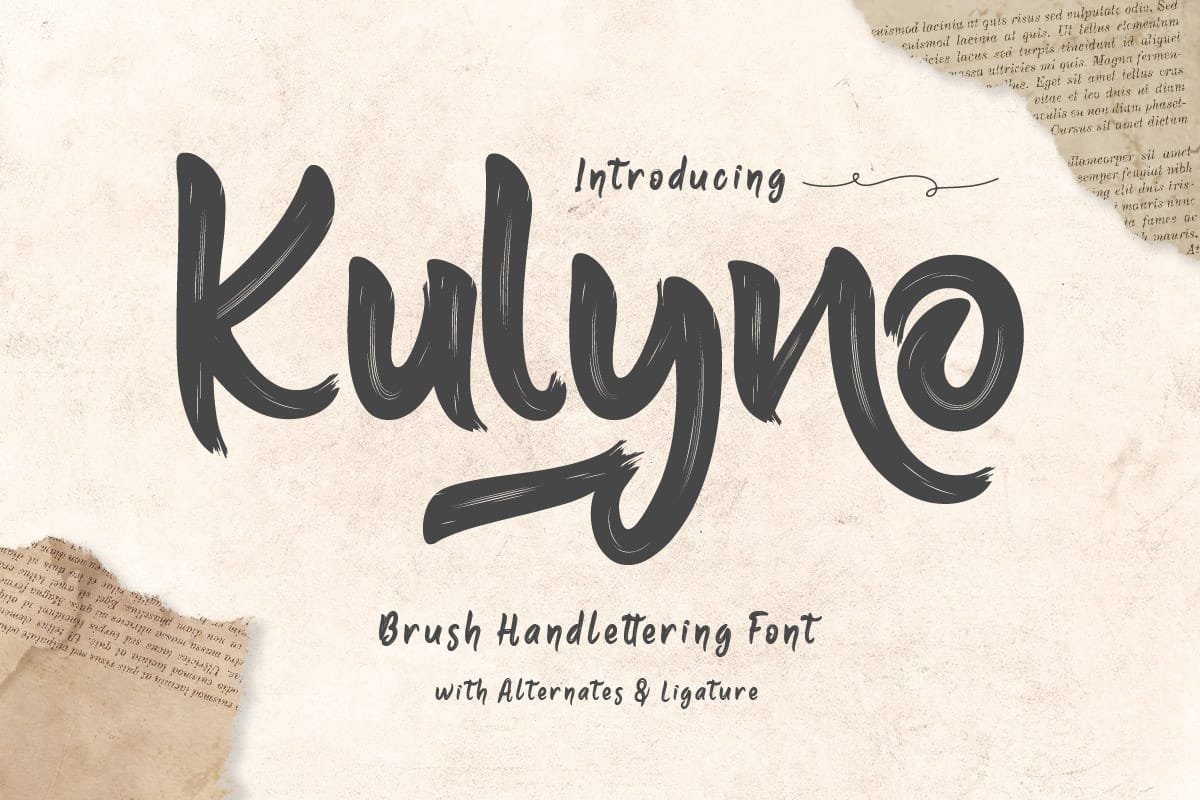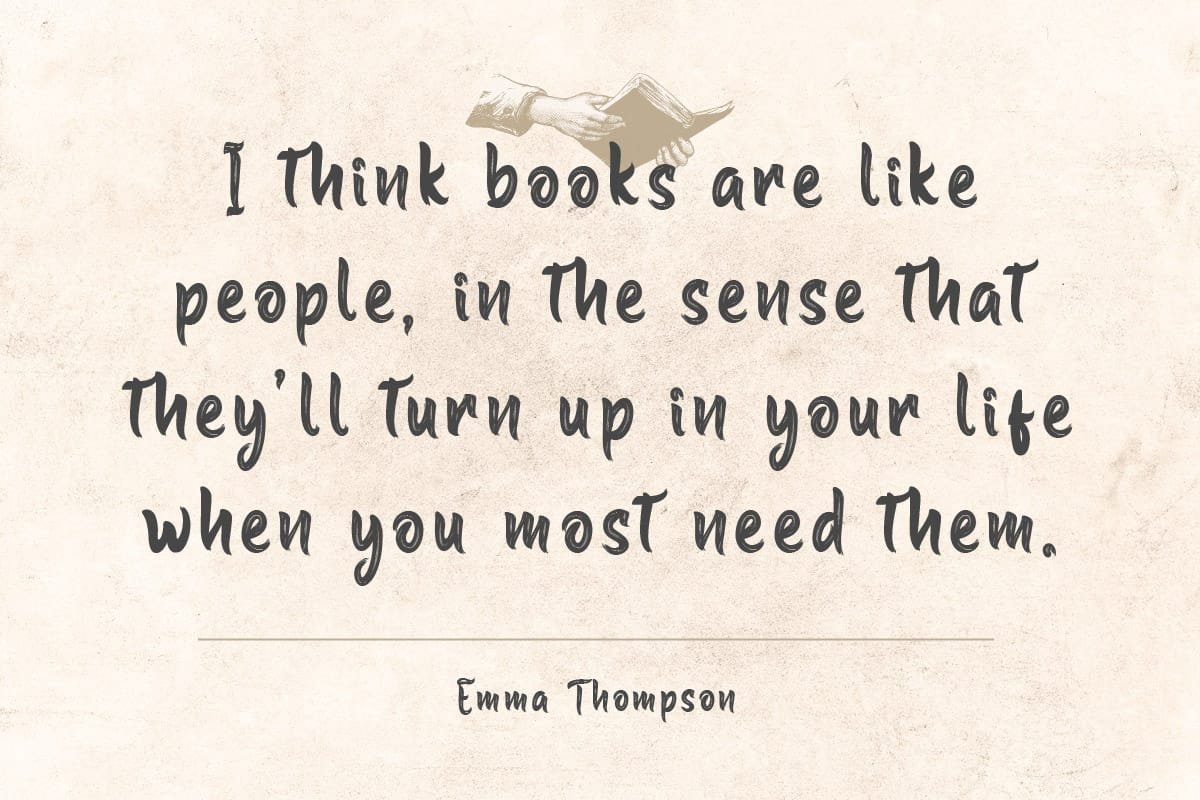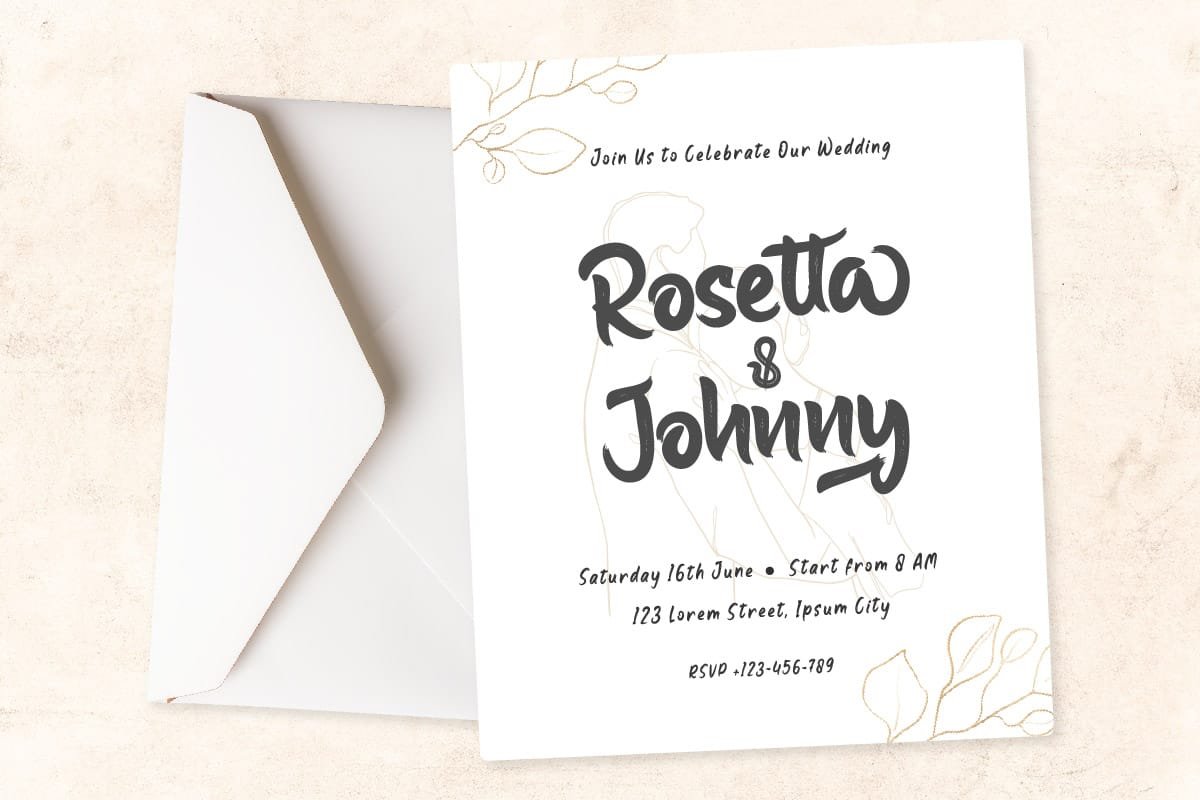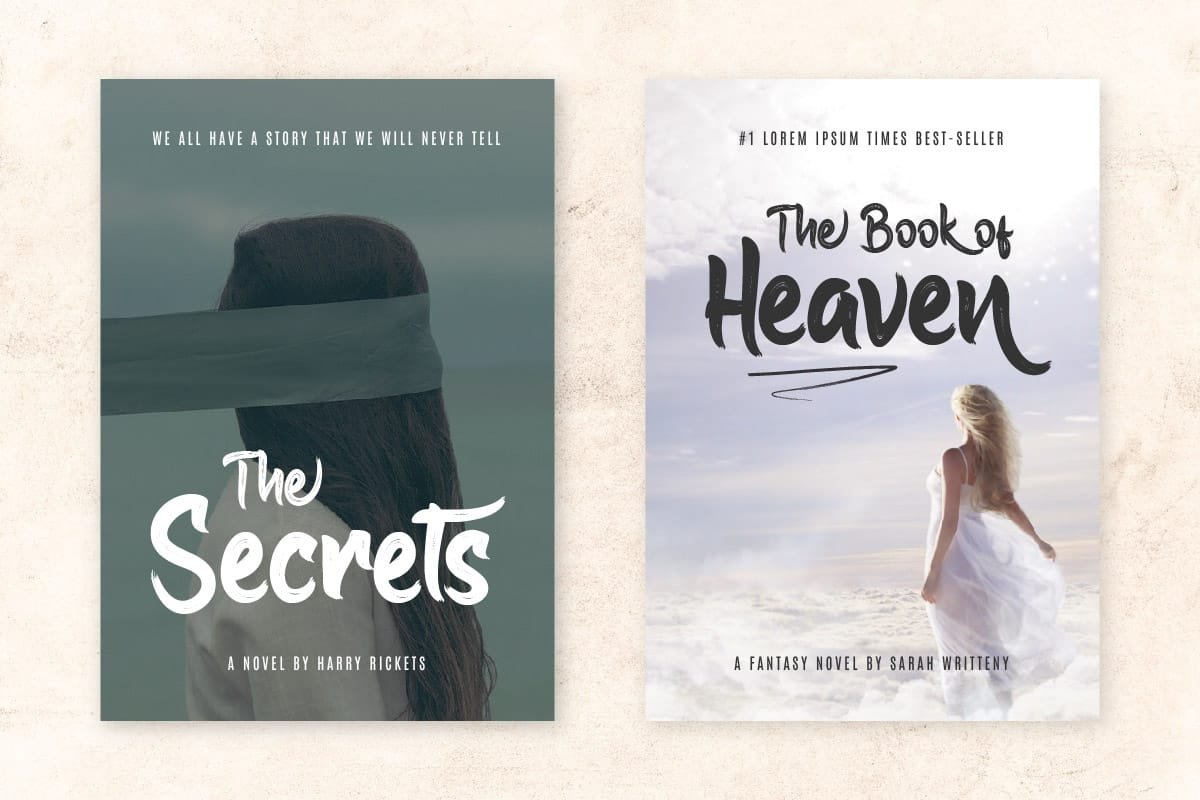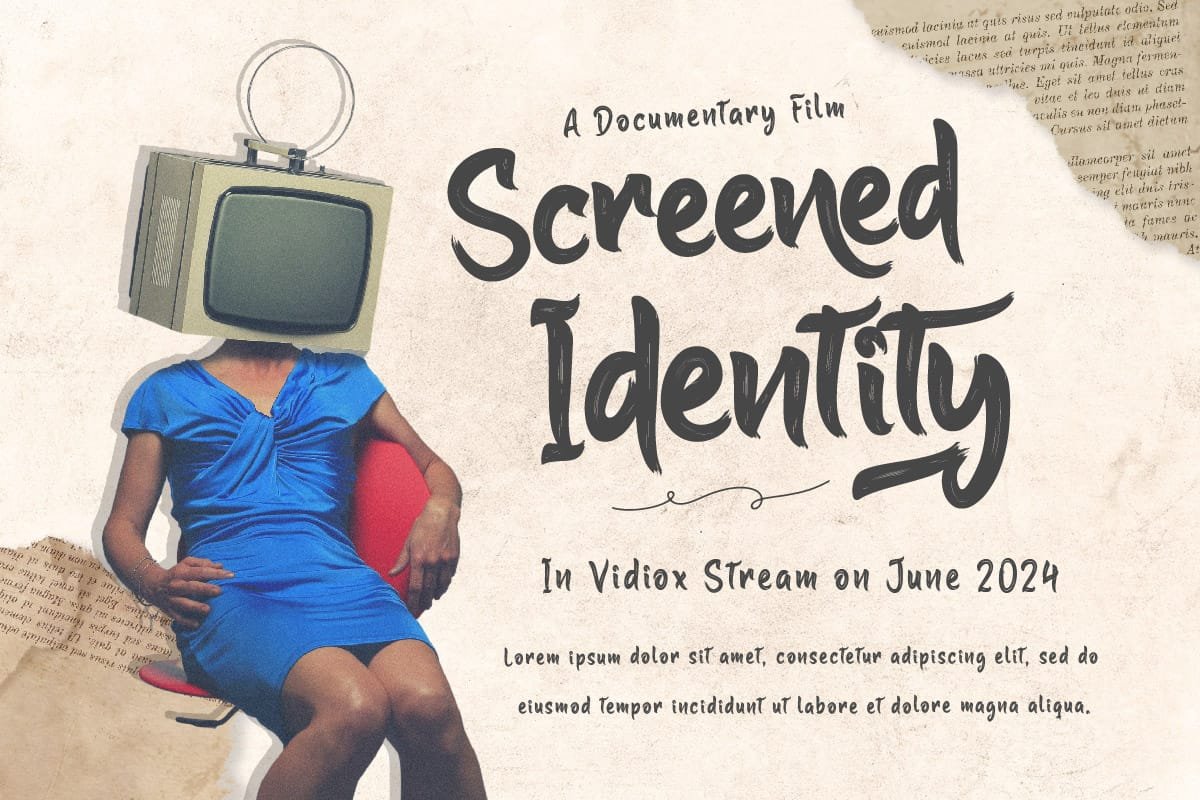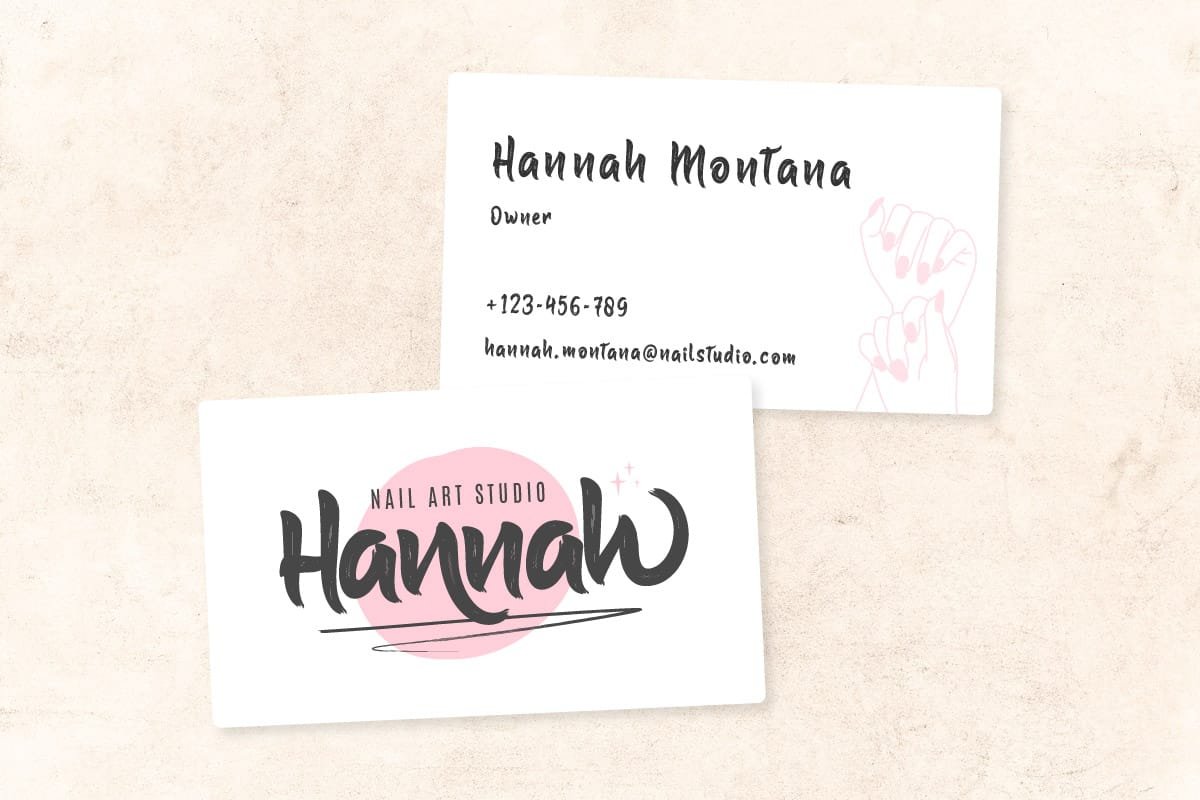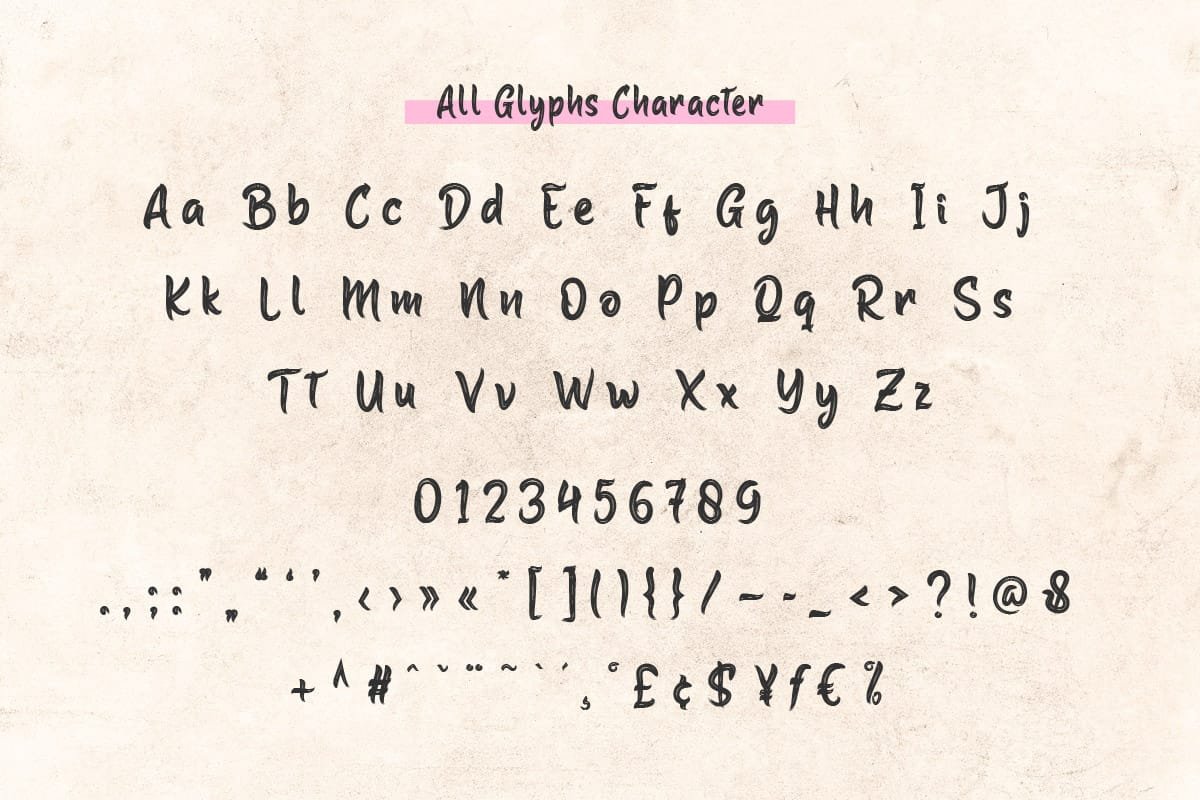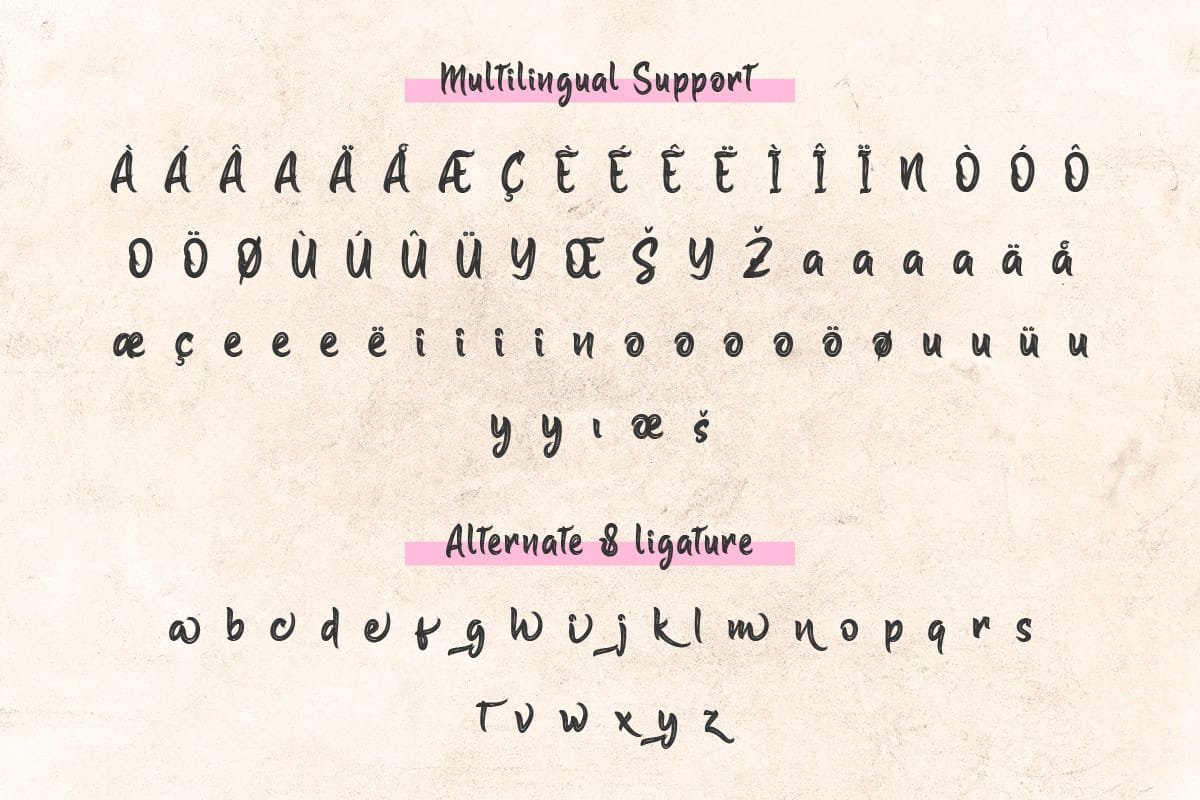
Kulyno is a brush handwritten font that brings a touch of casual elegance to your designs. Its organic, flowing characters mimic the beauty of human handwriting, making it perfect for designs that require a personal, handmade touch. Whether you’re creating a heartfelt greeting card or a trendy logo, Kulyno adds a touch of authenticity that is sure to captivate your audience.